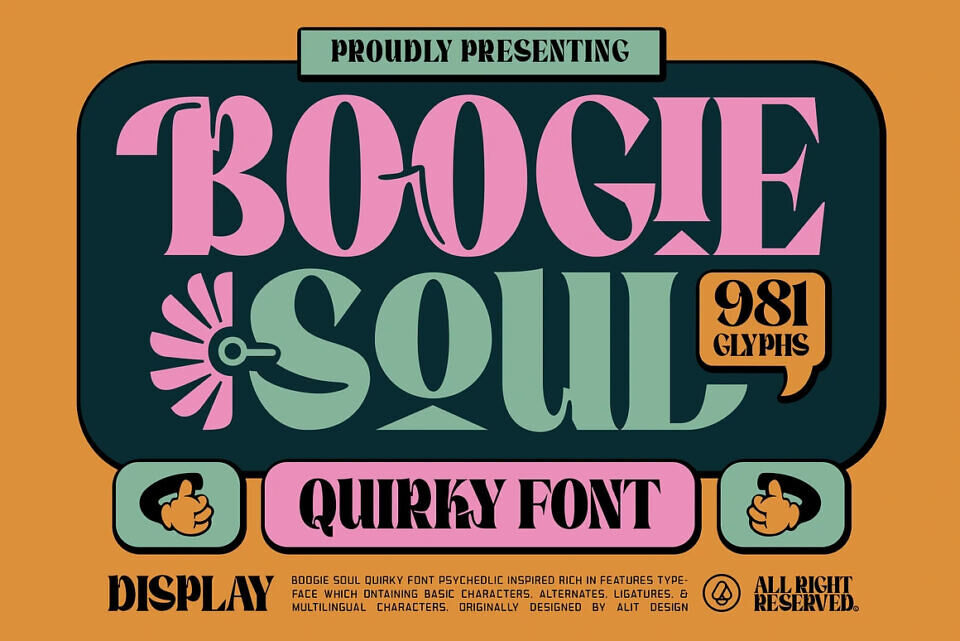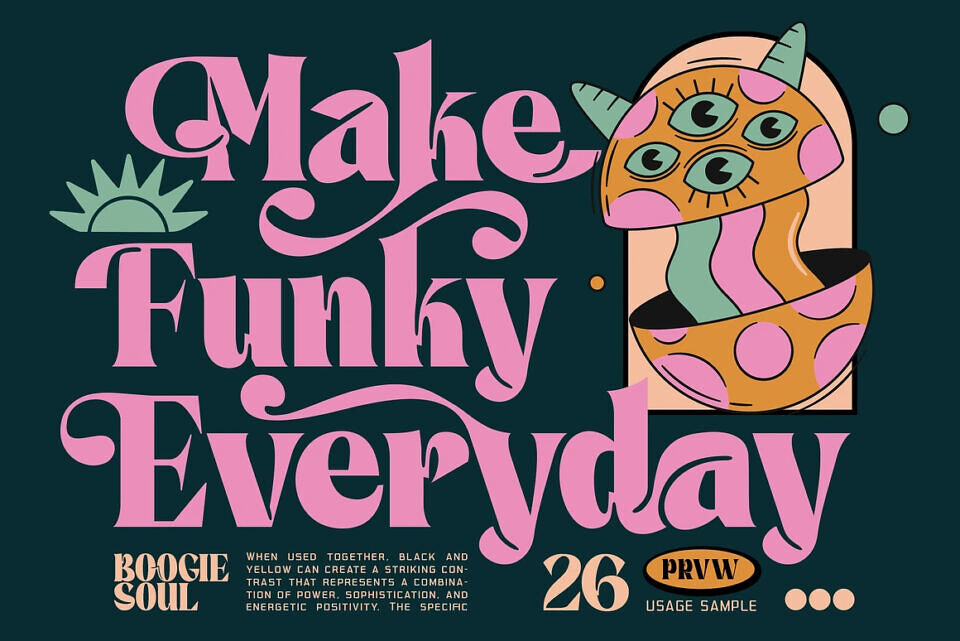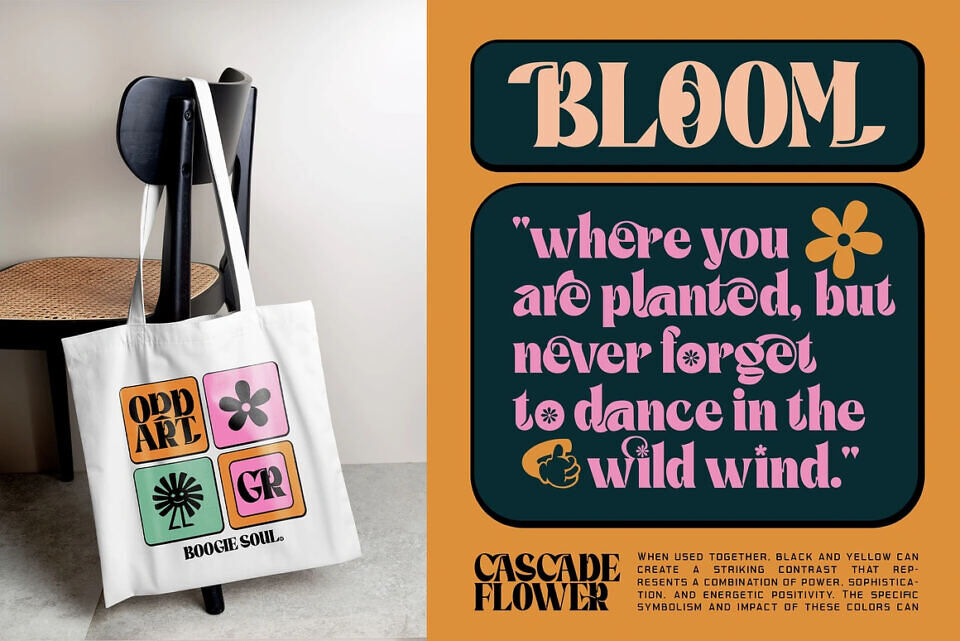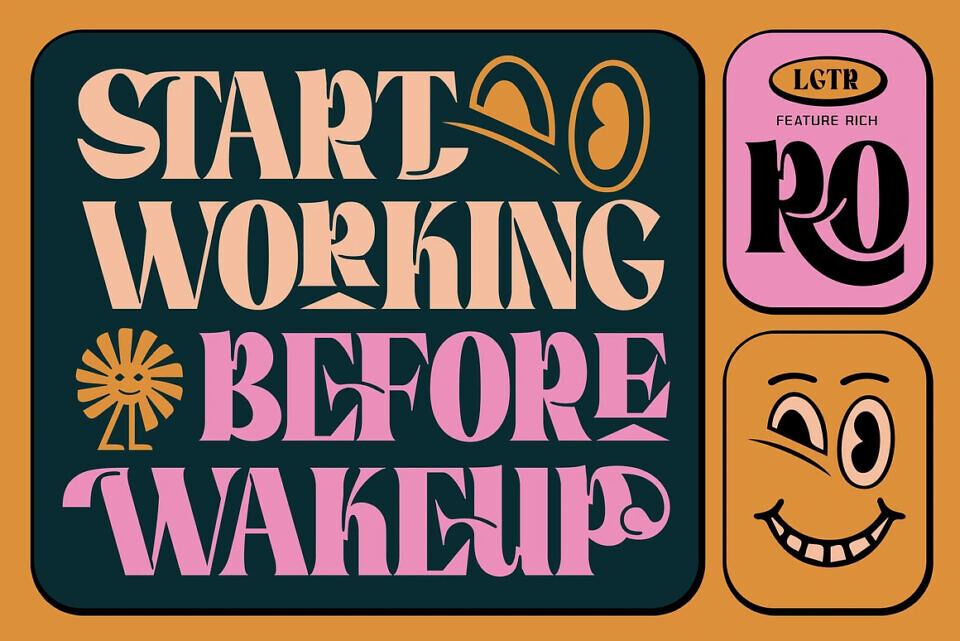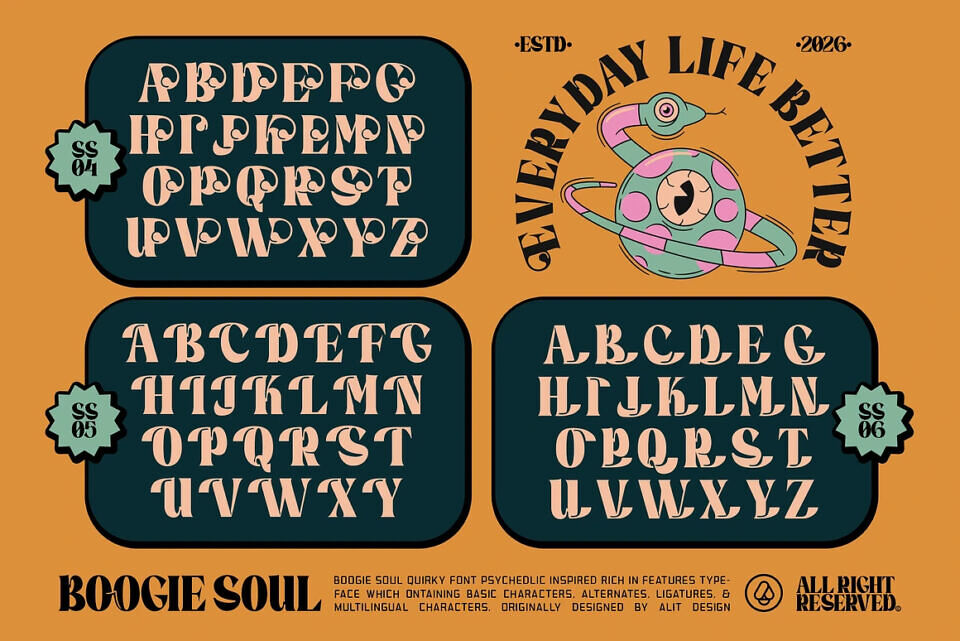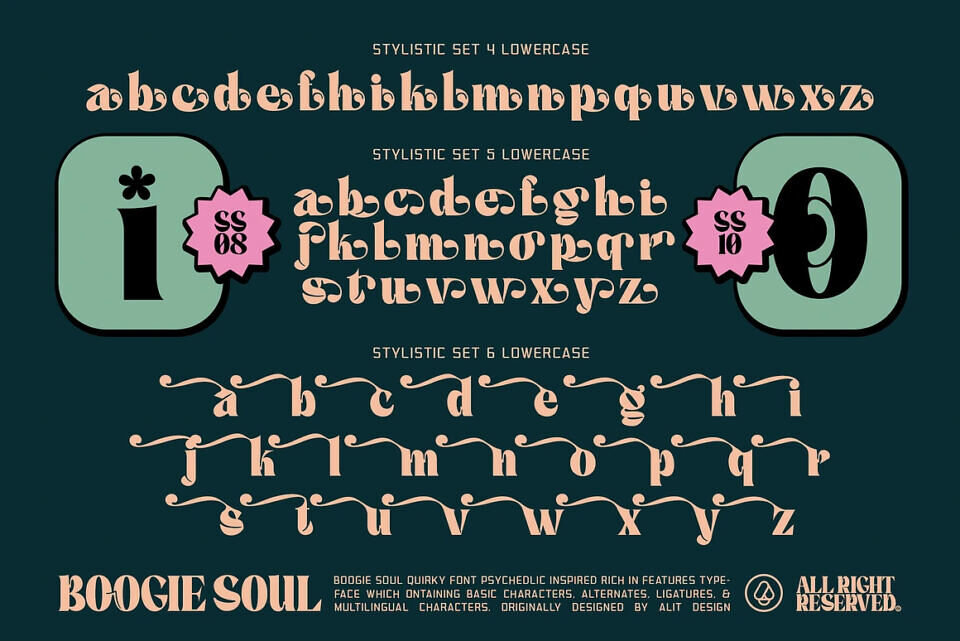
Boogie Soul Font
Introducing Boogie Soul, a typographic time machine that captures the free-spirited energy of the 1960s and the funky bold aesthetics of the 1970s. This isn’t just a font; it is a complete design system built to inject personality, quirkiness, and pure “soul” into your visual projects.
Designed with high-contrast strokes and liquid curves, Boogie Soul bridges the gap between vintage nostalgia and modern eccentricity. Whether you are designing a band poster, a streetwear brand, or a playful logo, this font ensures your message doesn’t just sit there—it performs.
Designed by: Alit Design